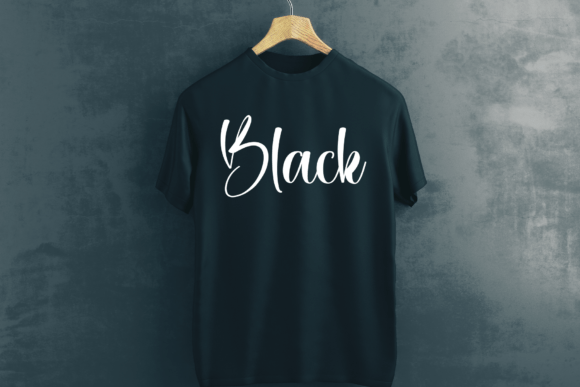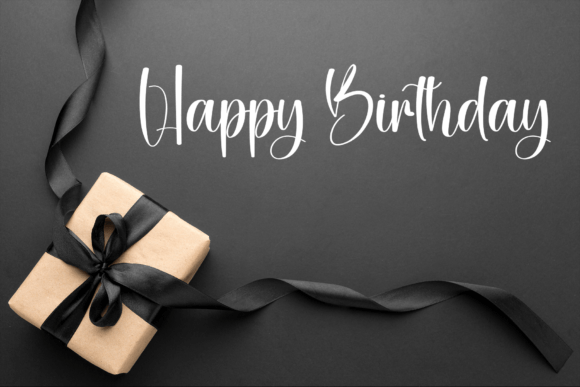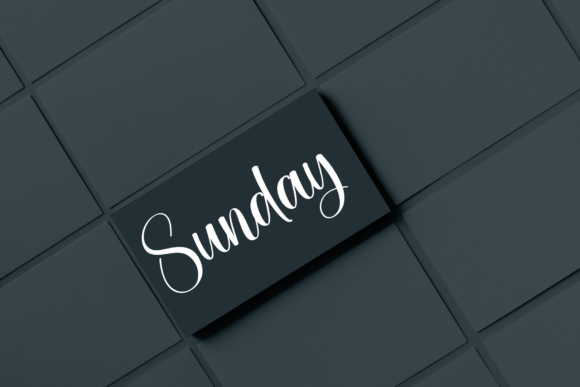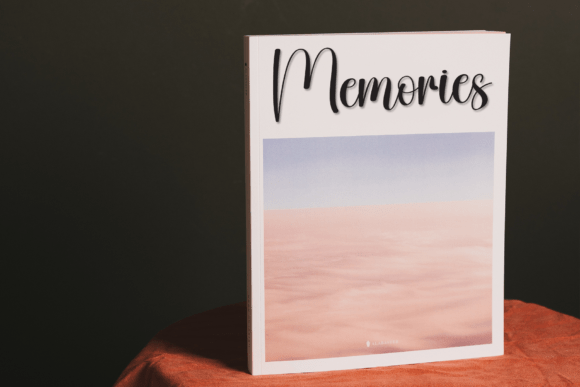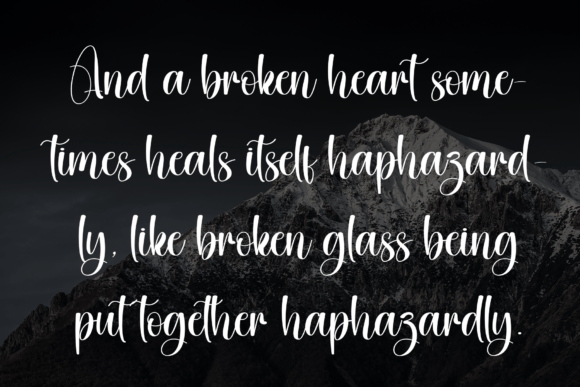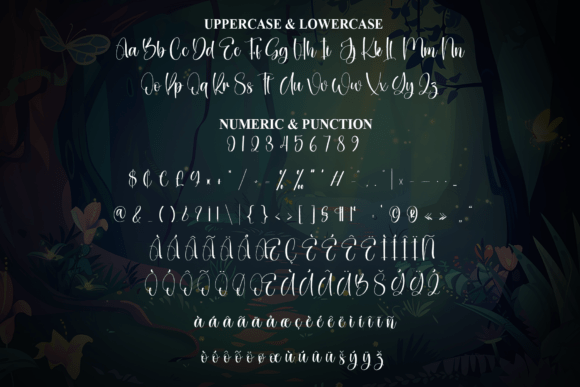
Introducing Enchanting: The Luxury Handwritten Font for the Discerning Designer
Step into a world of magic and refinement with Enchanting, a luxury handwritten font that captures the fluid grace of artistic penmanship. Enchanting is the definitive choice for fantasy book covers, mystical branding, luxury event stationery, and artisanal product labels. Whether you are designing for a boutique skincare line or a cinematic wedding invitation, Enchanting adds a touch of dreamlike elegance and bespoke charm to every word.
The Art of Handwritten Typography
In an era dominated by digital communication, handwritten typography offers a refreshing respite from the uniformity of digital fonts. Enchanting takes this concept to new heights, boasting an intricate and refined aesthetic that echoes the finest calligraphy. Each letter is carefully crafted to convey a sense of movement and fluidity, as if written by a skilled artist. The result is a font that exudes luxury, sophistication, and a deep connection to the art of traditional penmanship.
Unleash Your Creativity with Enchanting
Enchanting is more than just a font – it’s a design statement. With its elegant strokes and whimsical flourishes, this luxury handwritten font is perfect for designers and crafters seeking to add a touch of magic to their creations. Whether you’re working on:
- Fantasy book covers that transport readers to mystical realms
- Mystical branding that evokes a sense of wonder and enchantment
- Luxury event stationery that makes a lasting impression
- Artisanal product labels that convey a sense of exclusivity and refinement
Enchanting provides the perfect solution. Its versatility and charm make it an excellent choice for a wide range of design applications, from high-end fashion and beauty branding to cinematic wedding invitations and bespoke stationery.
What Sets Enchanting Apart
So, what makes Enchanting stand out from other handwritten fonts? Here are just a few reasons why designers and crafters are falling in love with this luxury font:
- Fluidity and movement: Enchanting’s letters seem to dance across the page, imbuing your designs with a sense of energy and dynamism.
- Elegance and refinement: This font exudes luxury and sophistication, making it perfect for high-end branding and design applications.
- Whimsy and charm: Enchanting’s subtle flourishes and intricate details add a touch of magic to every word, making your designs truly unforgettable.
Tips for Working with Enchanting
To get the most out of Enchanting, here are a few design tips to keep in mind:
- Experiment with pairings: Combine Enchanting with other fonts to create visually striking contrasts and hierarchies.
- Play with color: Enchanting looks stunning in a range of colors, from rich jewel tones to metallic finishes.
- Pay attention to spacing: To maintain Enchanting’s elegant flow, be mindful of letter spacing and word spacing.
Enchanting is more than just a font – it’s an experience. With its captivating blend of elegance, whimsy, and refinement, this luxury handwritten font is sure to transport your designs to a world of magic and wonder. Whether you’re a designer, crafter, or simply someone who appreciates the art of beautiful typography, Enchanting is the perfect choice for anyone seeking to add a touch of bespoke charm to their creations.